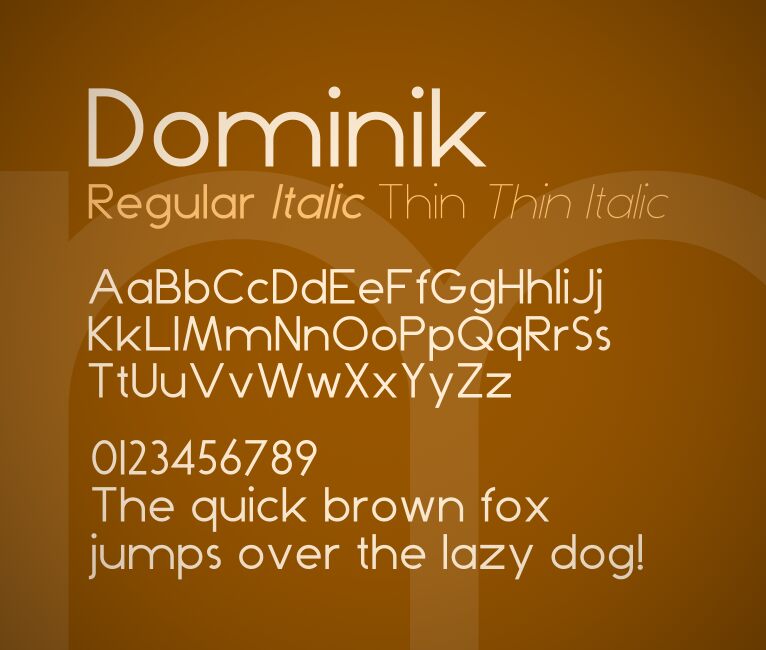
Dominik, designed in 2012 by Zdenek Gromnica, is a free geometric sans serif with exceptionally light, even strokes. Broad capitals and near-circular curves give the lettering an airy, architectural profile. Pointed joins in letters such as M and A add crispness to the smooth drawing.
Designers in fashion, architecture, and contemporary arts publishing can use its restrained finish for editorial titles and exhibition graphics. It also suits cosmetics packaging and refined cultural branding. Circles and fine diagonals echo minimalist illustration, extending that geometric theme into the lettering.
This is a geometric sans-serif typeface.
- Regular
- Italic
- Thin
- Thin Italic